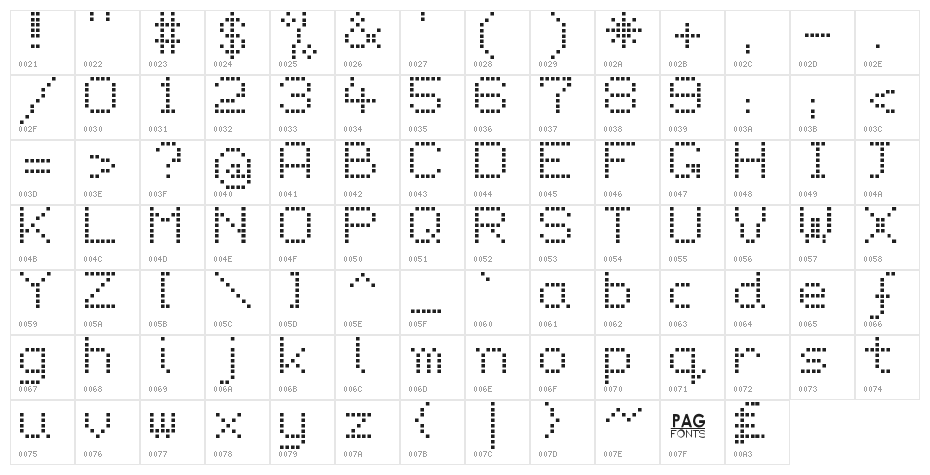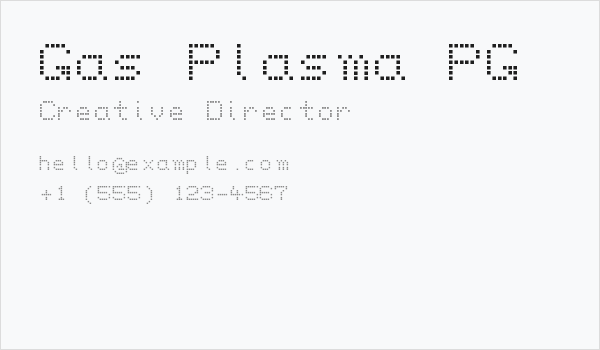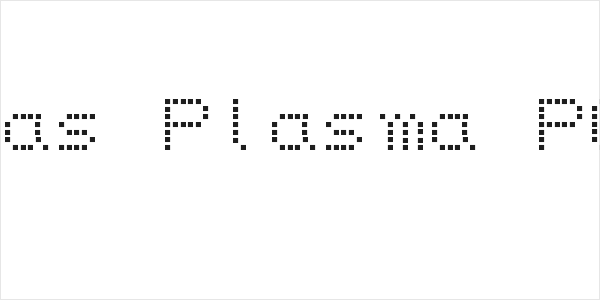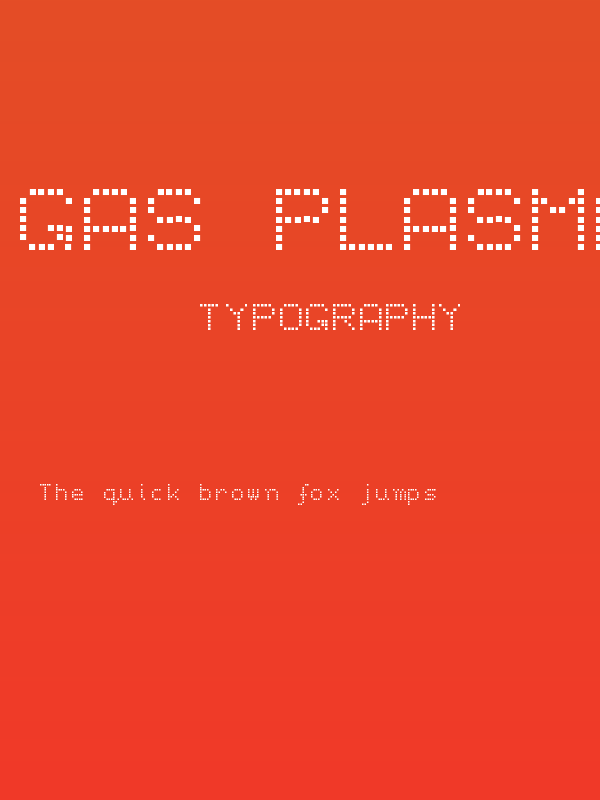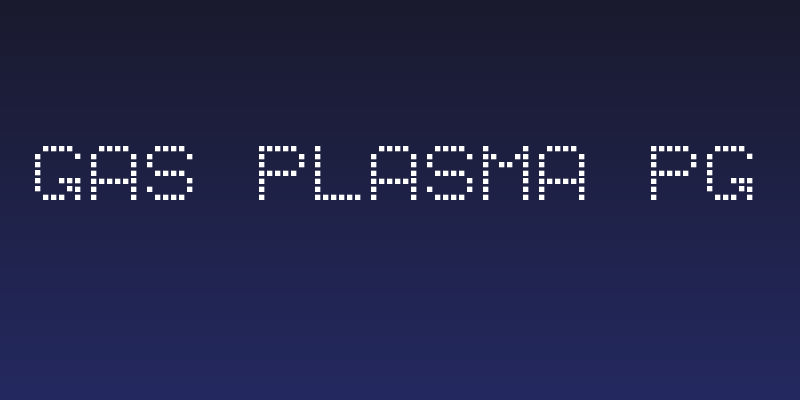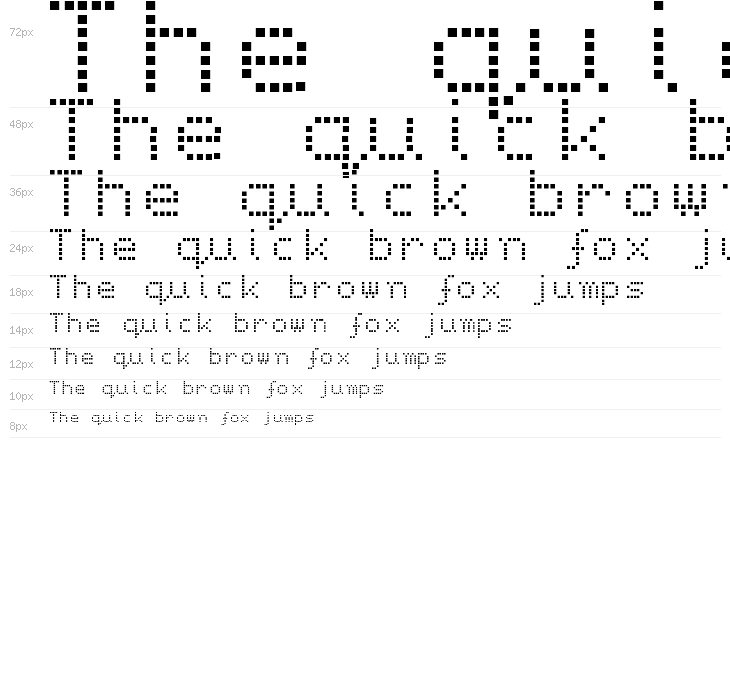
Gas Plasma PG Font
Gas Plasma PG Description
This font features a distinctive dot matrix style, reminiscent of digital displays and retro computing. Each character is constructed from a grid of dots, creating a pixelated appearance that evokes a sense of nostalgia for early digital technology. The uniformity of the dots provides a consistent texture across all characters, while the spacing between the dots ensures legibility. This design is particularly effective for conveying a technological or futuristic theme, making it ideal for projects that aim to capture the essence of vintage digital aesthetics. The font includes a full set of uppercase and lowercase letters, numbers, and a variety of special characters, all adhering to the same dot matrix style.
| Overall Style | Retro, Digital |
| Use Case | Headlines, Logos, Display text |
| Proposed Projects | Ideal for digital-themed designs, retro video game graphics, tech-related branding, and sci-fi movie posters. |